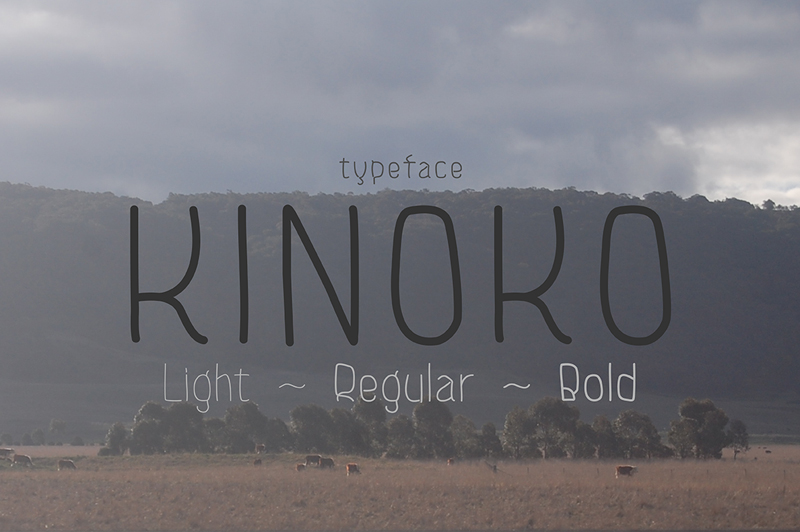
Font name: | Kinoko |
Author: | Motoki Higa |
Hi there, KINOKO is very chilled, friendly and organic looking handwritten typeface contained unique shapes like " B ", " R ", and goes on, yet it's not too much. KINOKO regular is free for personal use. For commercial use, please go to https://creativemarket.com/Moto/20104-KINOKO It's coming with another 2 weights ( LIGHT and BOLD ), 337 glyphs, 55 languages support and kerning. Thank you |